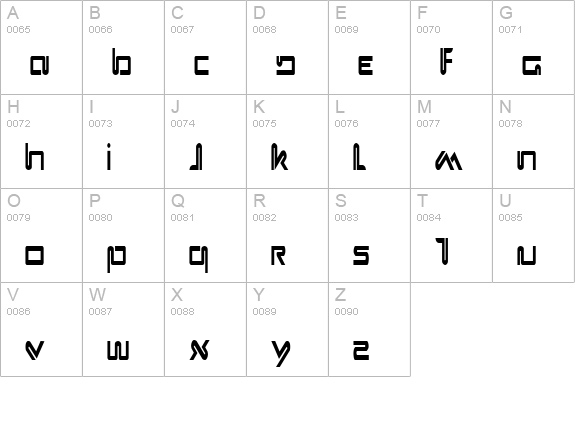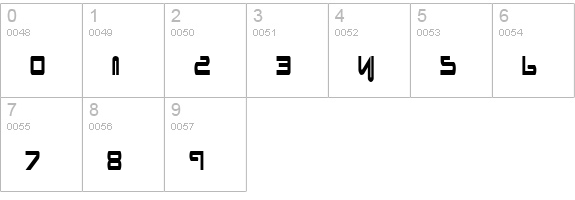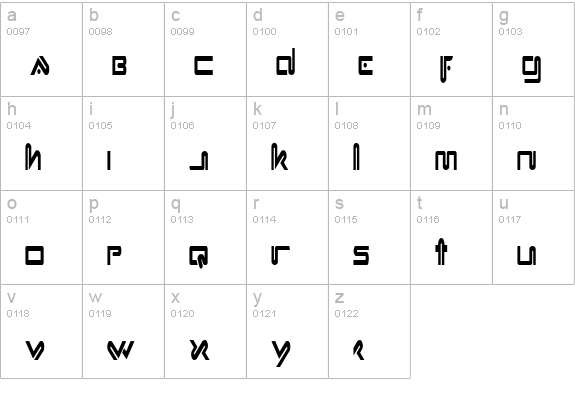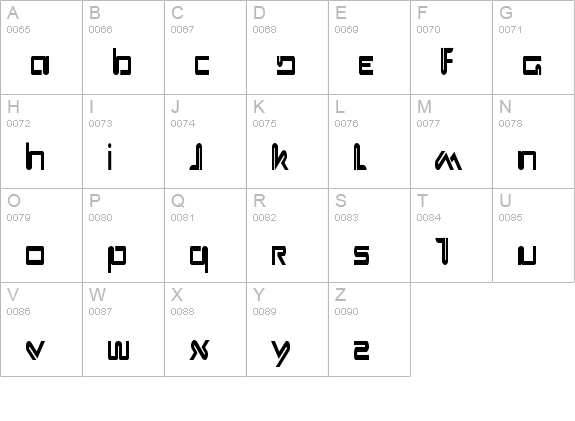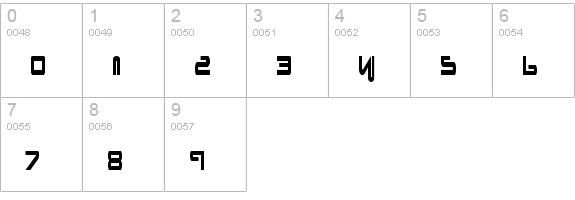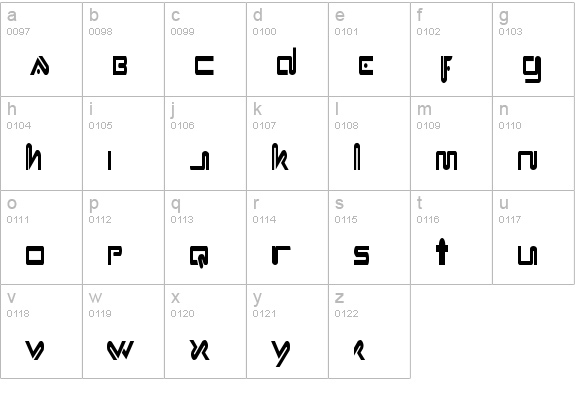
Xephyr Condensed is a distinctive, condensed-width variant in the Xephyr typeface family \xE2\x80\x94 well suited to design and typography projects.
Xephyr Condensed font is a sleek and modern typeface that exudes elegance and sophistication. With its clean lines and streamlined design, this font is perfect for creating a contemporary and stylish look in any project. The condensed style of Xephyr makes it ideal for fitting more text into limited spaces without sacrificing readability. What sets Xephyr Condensed font apart is not just its aesthetic appeal, but also the fact that it is available for free download at FontsMarket.com. This means that you can easily access this high-quality font without any cost, making it a valuable asset for designers, creators, and anyone looking to elevate their projects with a touch of sophistication. Whether you're designing a website, creating a logo, or working on a print project, Xephyr Condensed font is sure to make a lasting impression with its modern and stylish appearance.